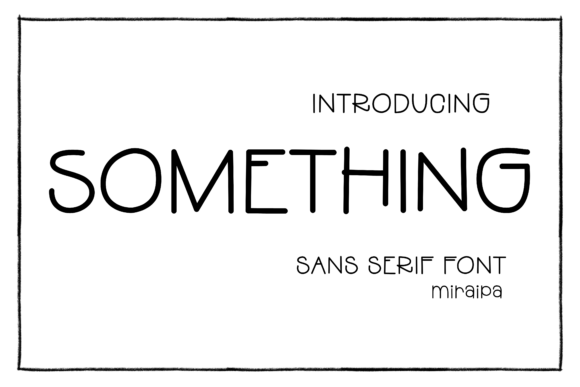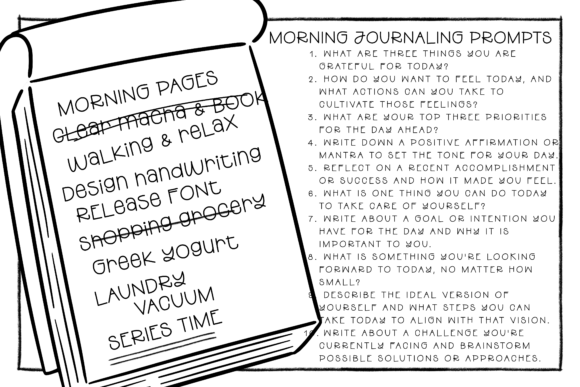
Something Font
Introducing the “Something” – a friendly and neat Handwritten sans-serif font style. This font is perfect for adding a cute touch to everything, from t-shirts and coffee mugs to hoodies and tote bags.